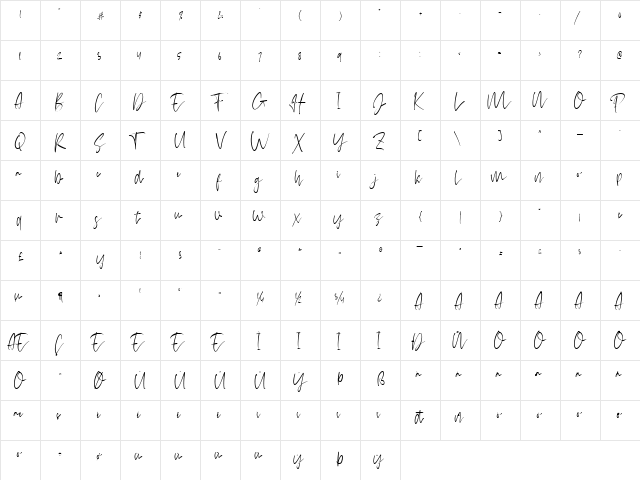
hello Jellita Regular
Design Context for hello Jellita Typeface
hello Jellita is a composed and adaptable typeface that performs quietly and consistently across a wide range of design contexts.